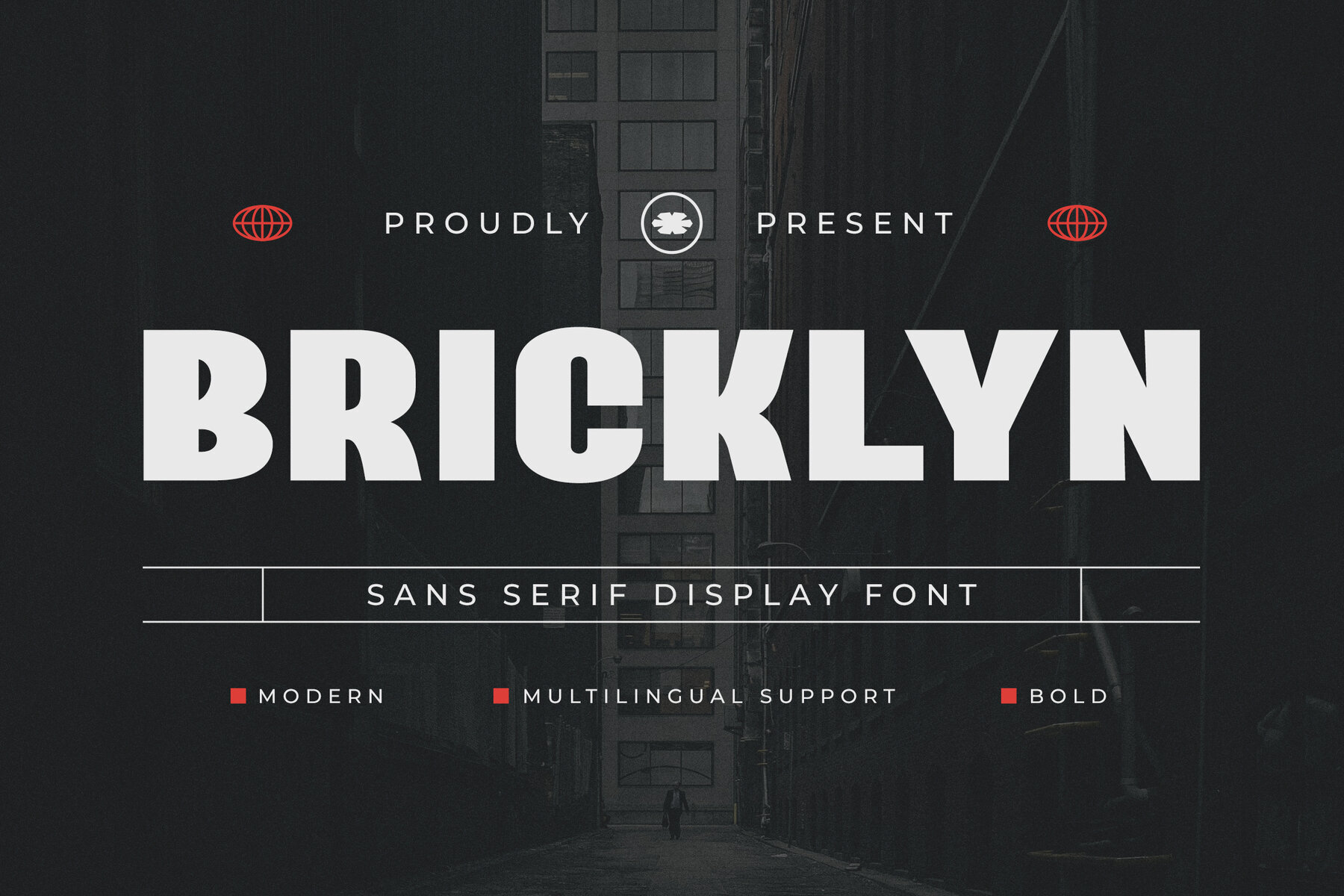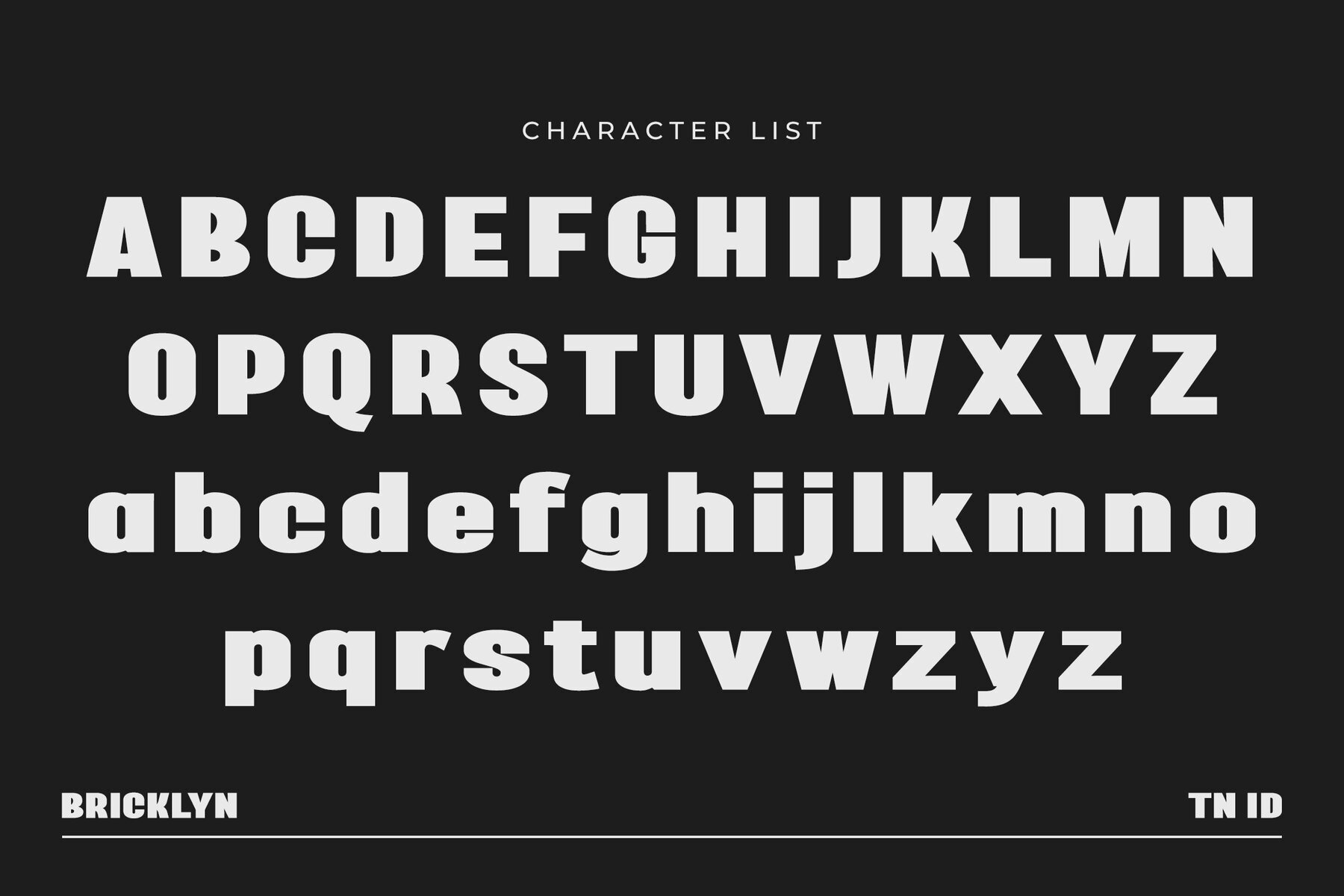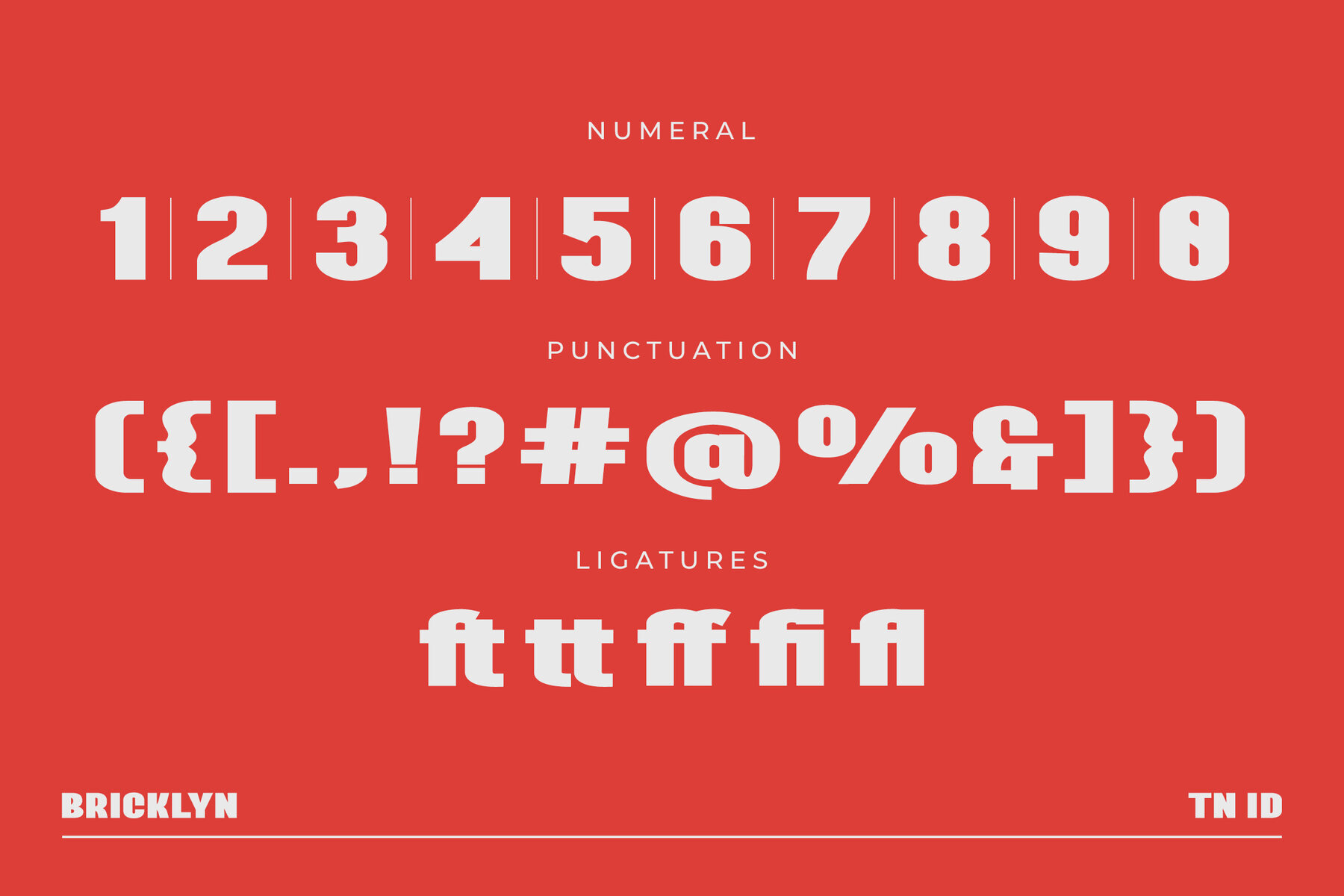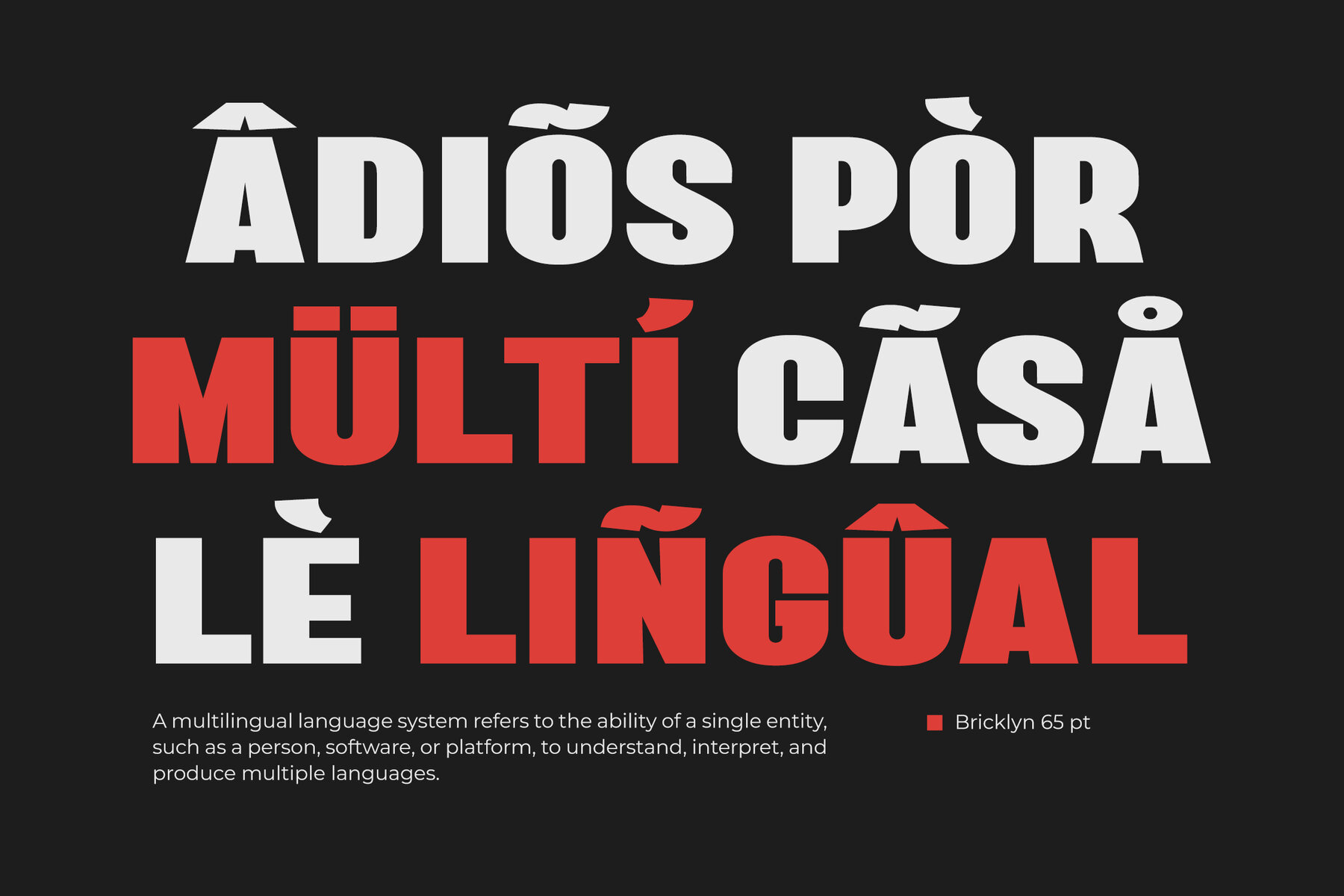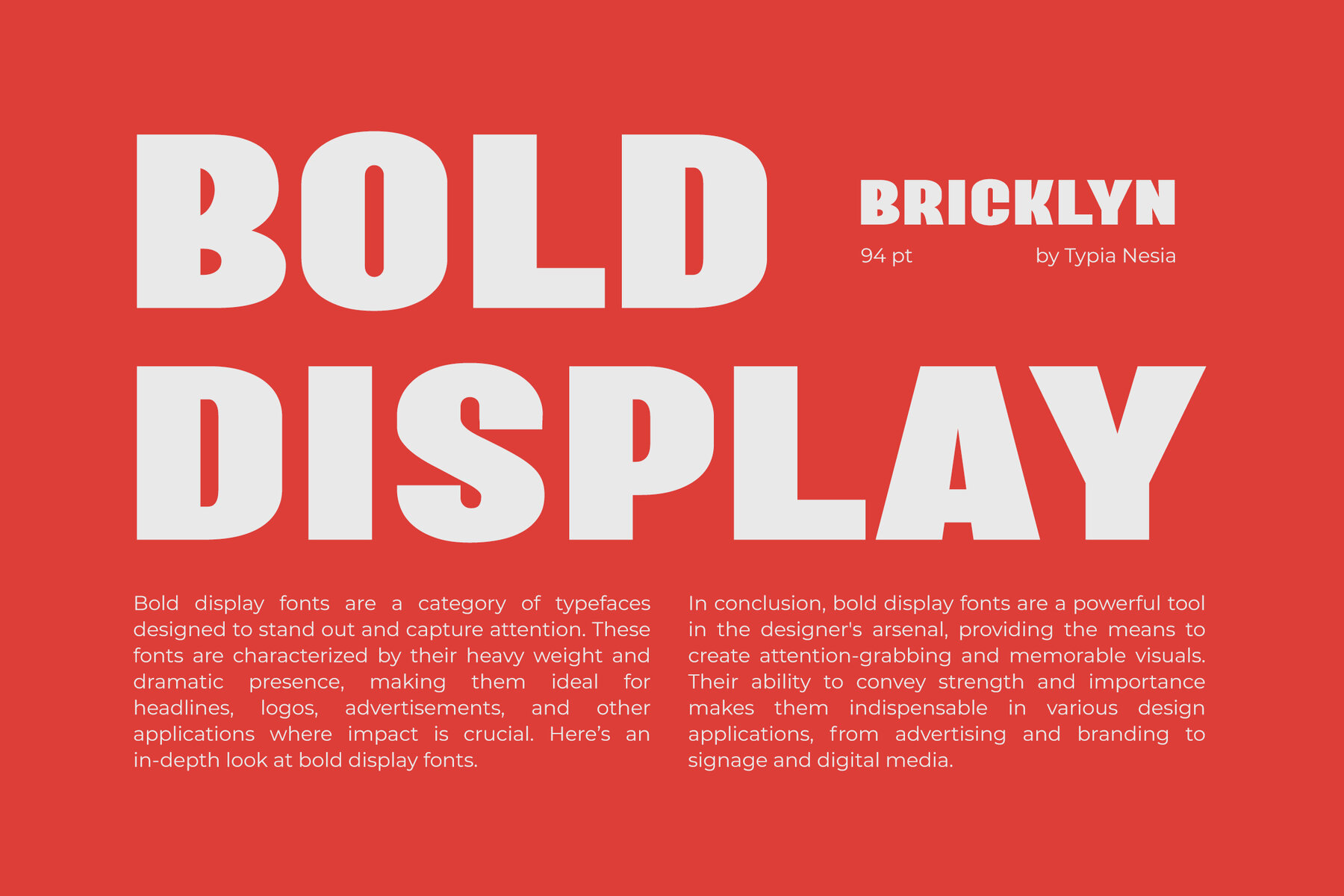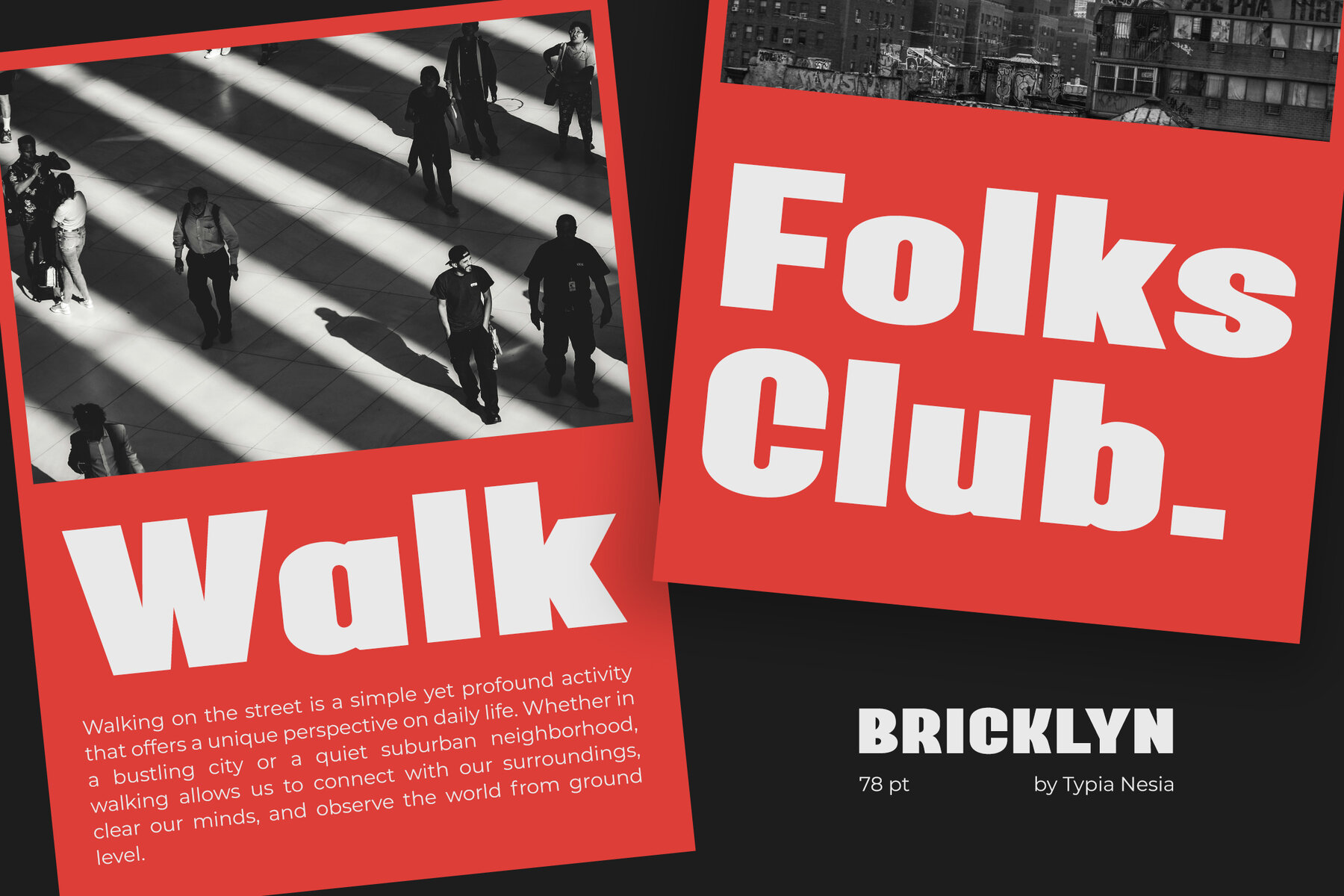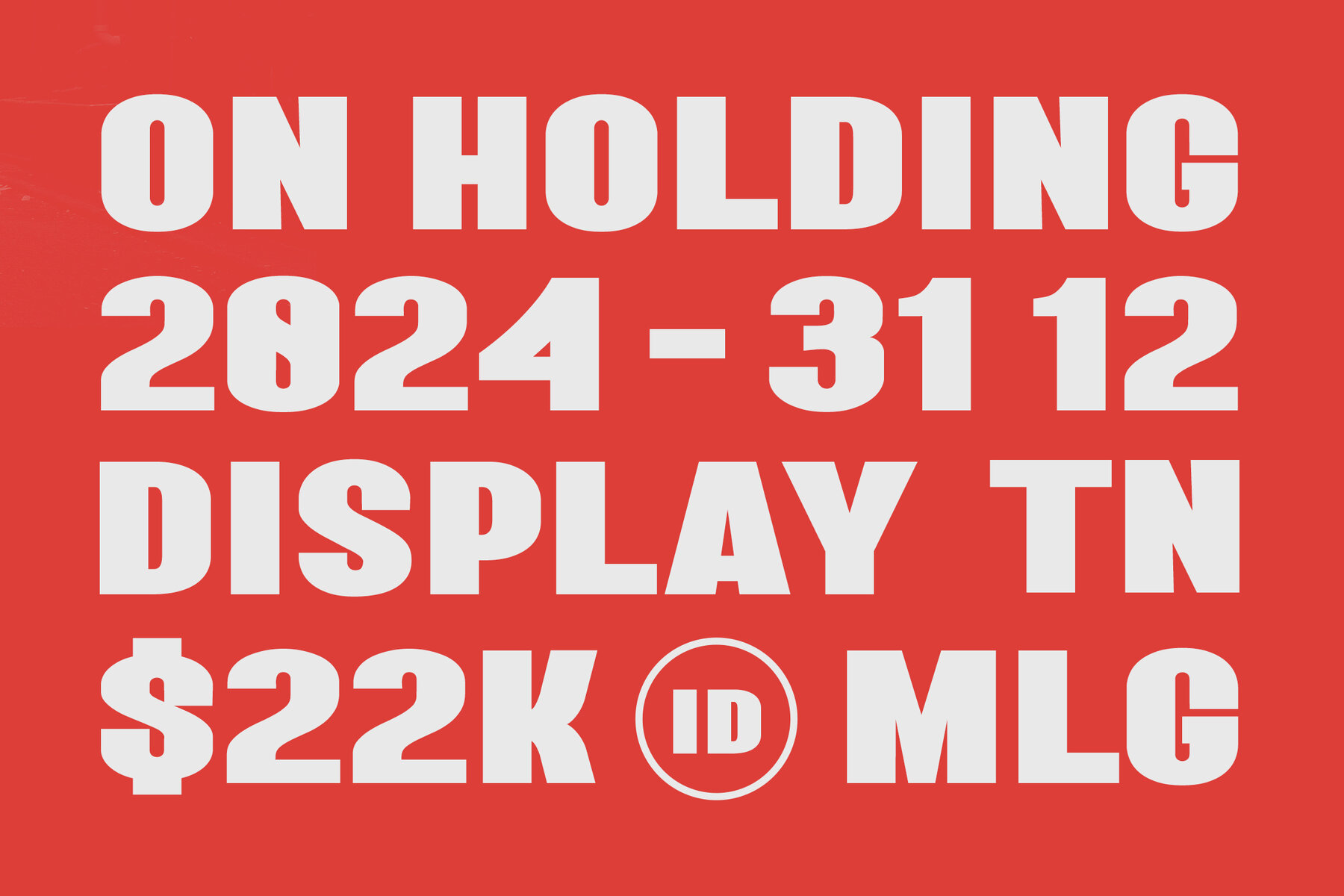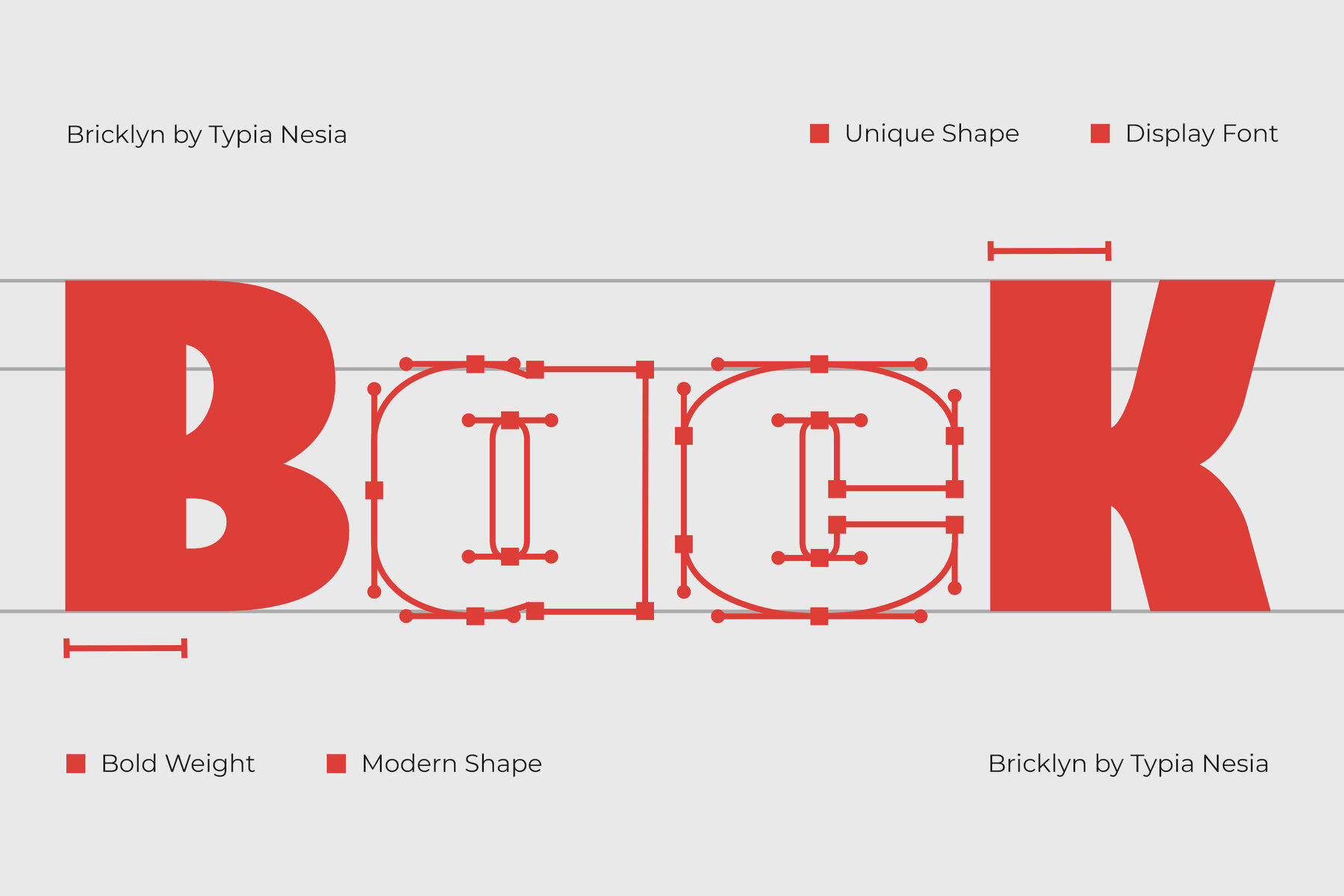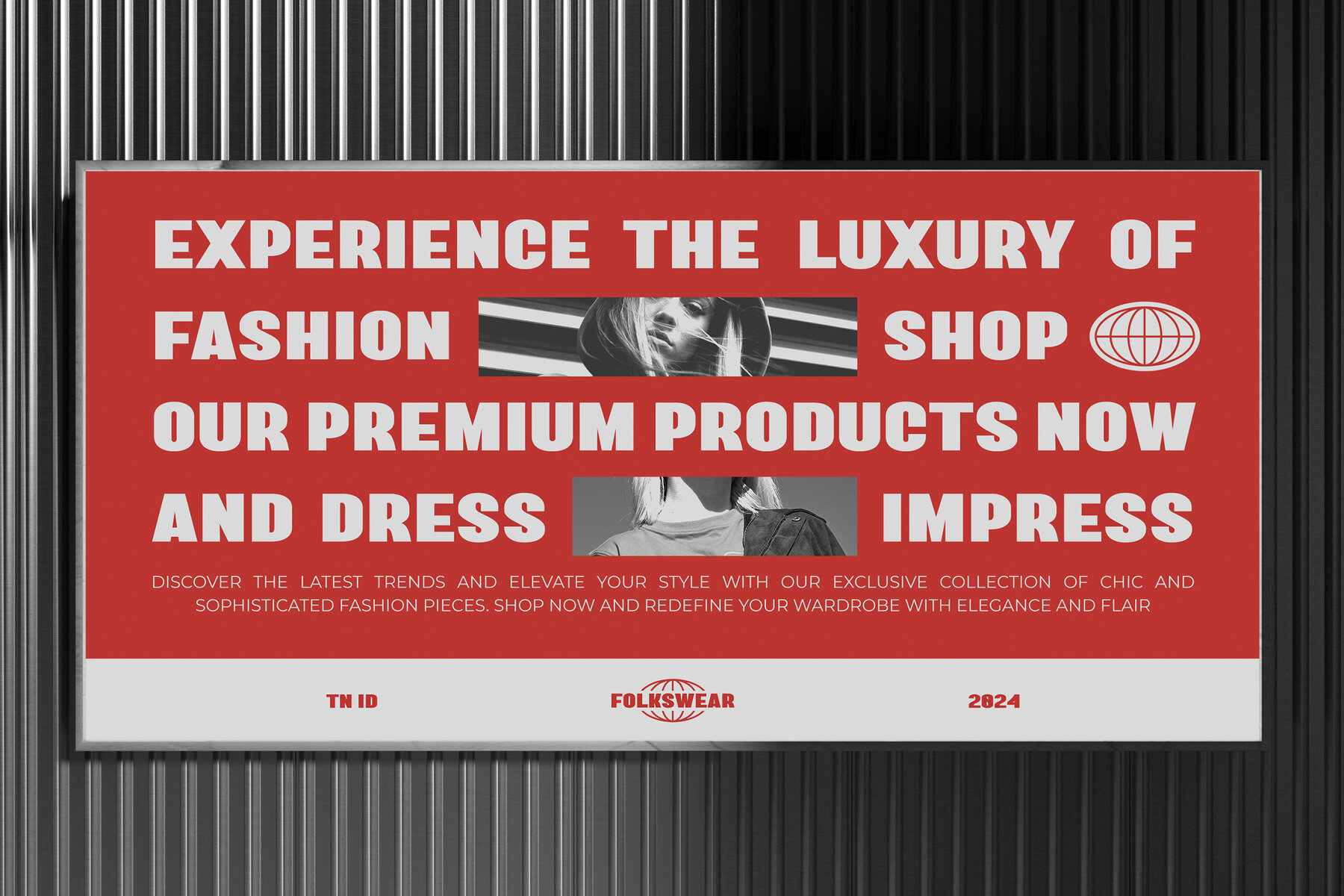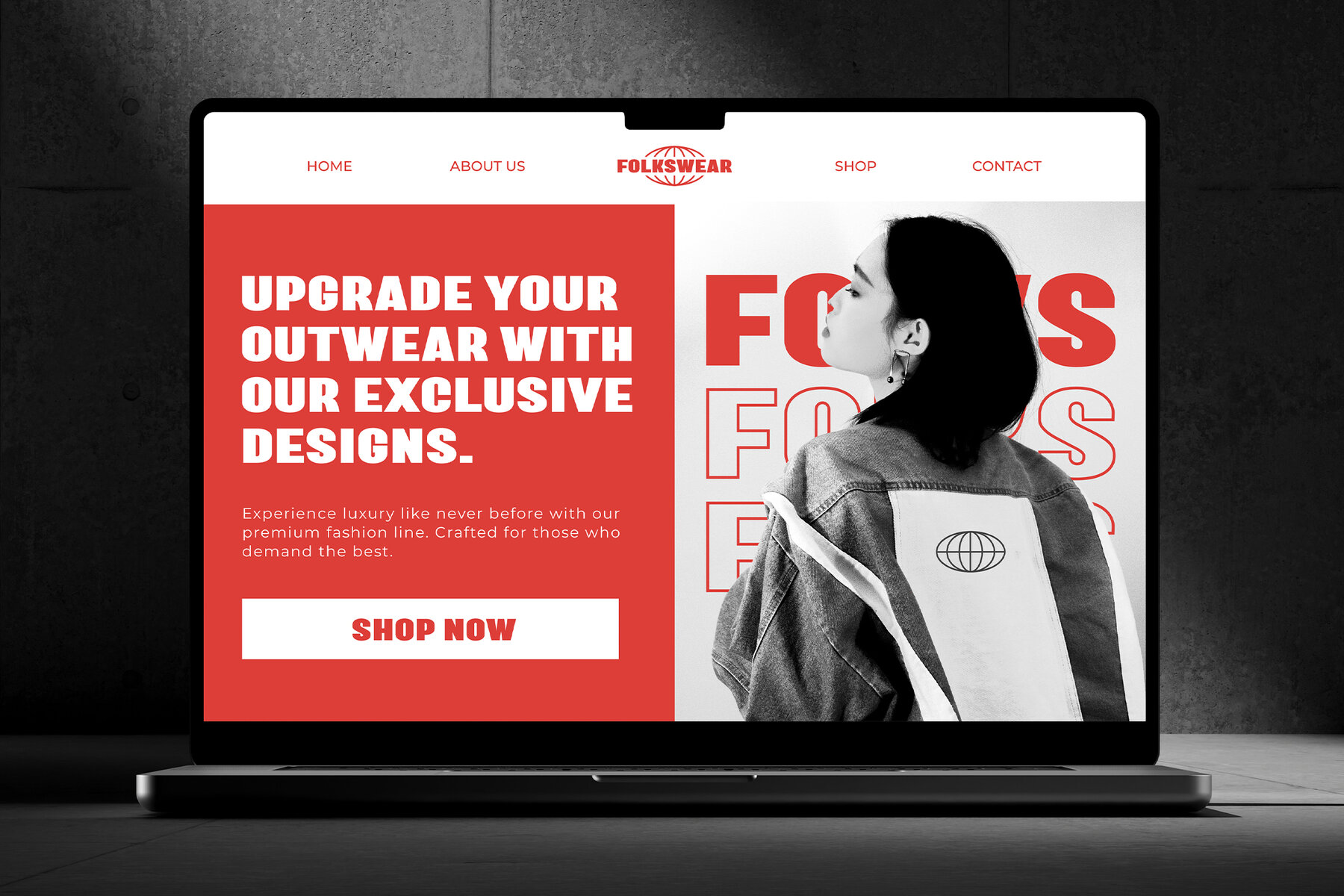
Bricklyn Font
Bricklyn Regular
Bricklyn - Display Sans Serif Font - Bold Modern Contemporary Branding Font. Bricklyn is a Display Sans Serif Font that boasts a bold and modern look. Its clean lines and contemporary design make it perfect for projects that require a strong and striking visual presence, making it suitable for both minimalist and dynamic design applications. Such as branding, posters, advertising, web design, social media graphics, editorial layouts, and any project to require a modern contemporary touch and bold impact. The font enhances the visual impact of any project. Its versatile style ensures it performs excellently in both print and digital formats, providing a crisp and professional look to logos, headlines, and body text. Comes with a comprehensive set of uppercase and lowercase letters, punctuation, numerals, and alternate characters to provide flexibility in design. Additionally, it offers extensive multilingual support, making it a versatile choice for global applications. Crafted with precision, Bricklyn combines the simplicity of sans serif fonts with modern typographic techniques, making it a reliable choice for designers aiming to create bold and captivating designs.